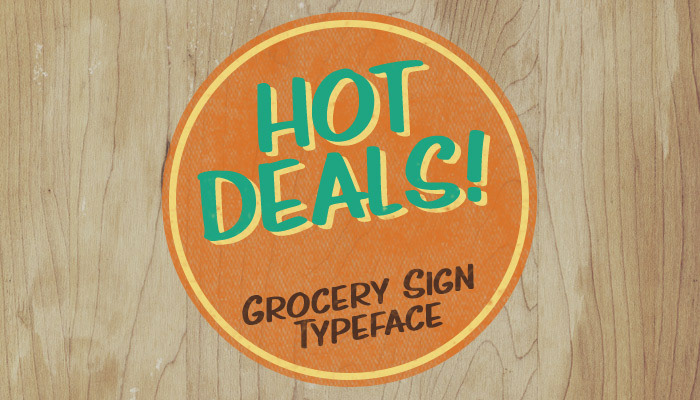
The other day, we were shopping at a Trader Joe’s grocery store, and I admired all of the hand-done signs in the store. Not just the big chalkboard pieces, but every small sign under every single product with the name and the price. So I made a note on my list of fonts that would be fun to make: grocery sign font.
Anyhoo, here’s my grocery font. For the technically-minded, I made the characters in Illustrator using a calligraphic brush (-16° angle, 40% round). I re-used some strokes across the font for a little more uniformity than I usually get in my handwritten fonts.
I’ve also used the Private Use Area for the first time. And it won’t be the last! It’s fun to make up my own characters.